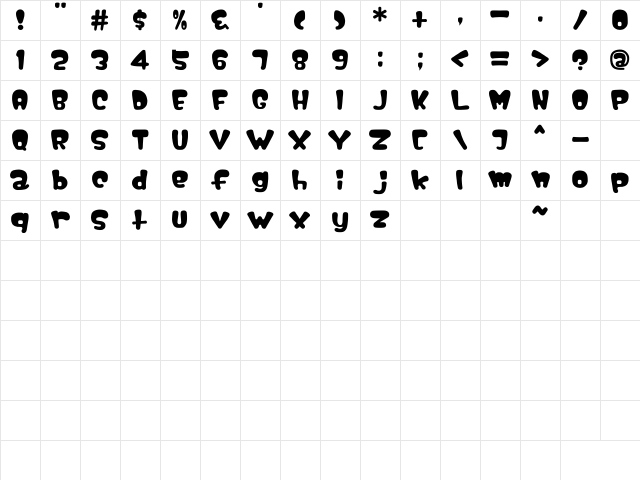
Nipple Regular
Design Context for Nipple
Nipple is a composed and adaptable typeface that performs quietly and consistently across a wide range of design contexts.